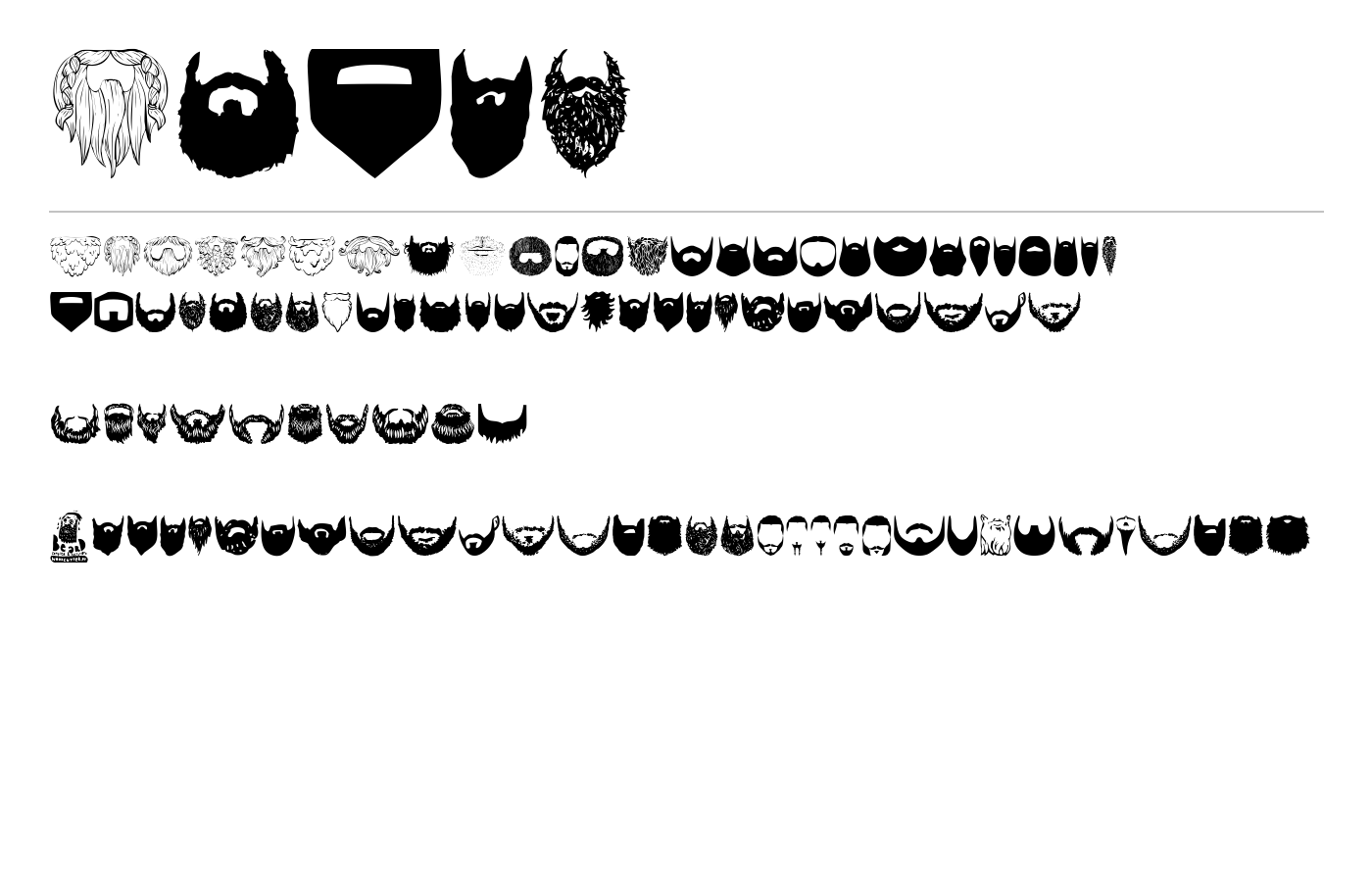
Beard Font is a playful and highly decorative novelty font composed entirely of unique beard-shaped glyphs. Its bold, graphic style with varied and intricate beard designs gives it a quirky, rugged personality perfect for creative projects, branding with a masculine or hipster vibe, and eye-catching logos. This font works best when used as a fun visual element rather than traditional text, making it ideal for posters, social media graphics, and distinctive packaging.
Beard Font
About Beard Font